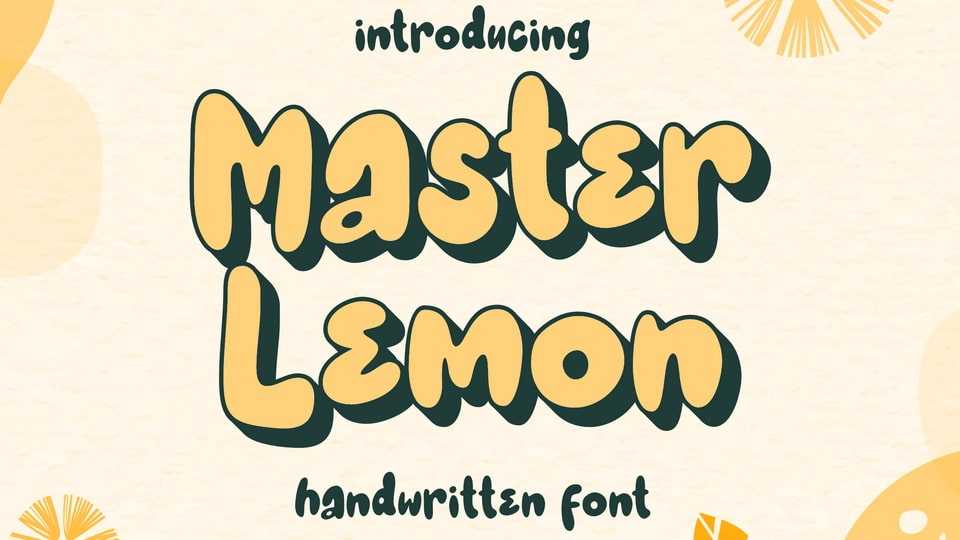
Download Master Lemon font, a cute and bubbly display handwritten typeface, ready to make your designs look great and fun! Use it with confidence on your project designs such as quotes, greeting cards, invitations, posters, business cards, presentations, and more!